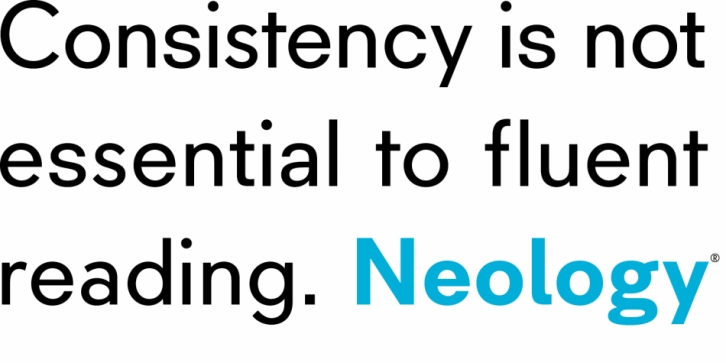
Neology is a sans serif font family. This typeface has fifteen styles and was published by Shinntype.
This typeface has been designed to demonstrate a hypothesis: consistency in letter form and style is not essential to fluent reading.
Two harmonized styles, geometric (art deco) and grotesque, have been combined in one font, which chooses the glyph for each text character from either subset, in a pseudo-random manner.
There is no scientiï¬c evidence that a character should be represented by an identical glyph every time it appears—this is a result of an economy originating with foundry type.
Beyond being an experiment, Neology, for all its “wrong font†quality, is fully finished and serious in intent. Certainly, it is novel; one might not go so far as to say that it enhances readability, but stranger things have been known.